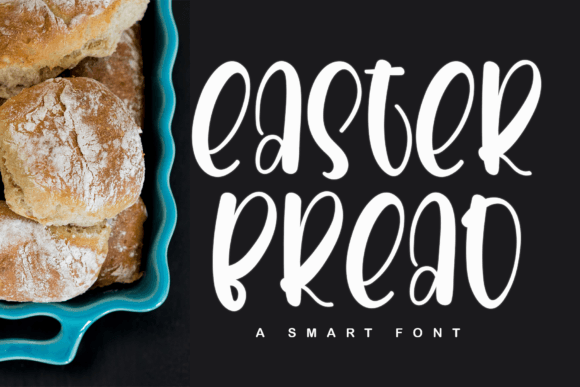
Introducing Easter Bread Font, the perfect script font to elevate your design portfolio to the next level! This sweet and beautiful handwritten font is sure to captivate your audience with its unique charm and luxury spark.
Crafted by the talented team at Black line, Easter Bread Font boasts stunning characters that gracefully dance along the baseline. Whether you're designing a new logo, creating an eye-catching social media post, or developing a beautiful website, this font will bring your ideas to life like never before.
With its elegant and sophisticated style, Easter Bread Font is the ideal choice for anyone looking to make a lasting impression. Its versatility allows it to be used for a wide range of design projects, from wedding invitations and greeting cards to branding and advertising.